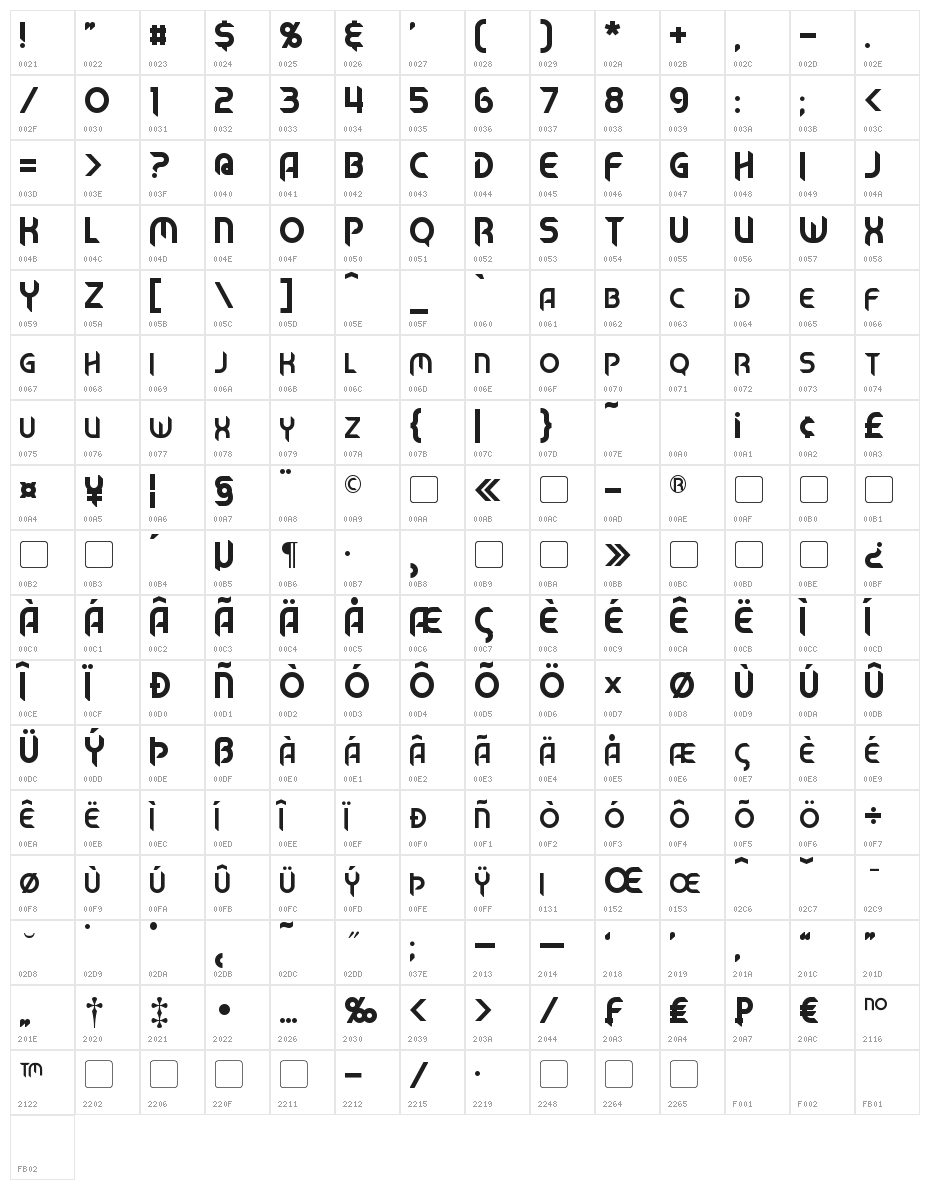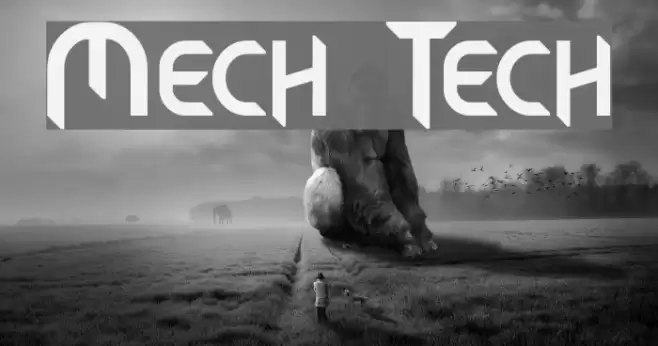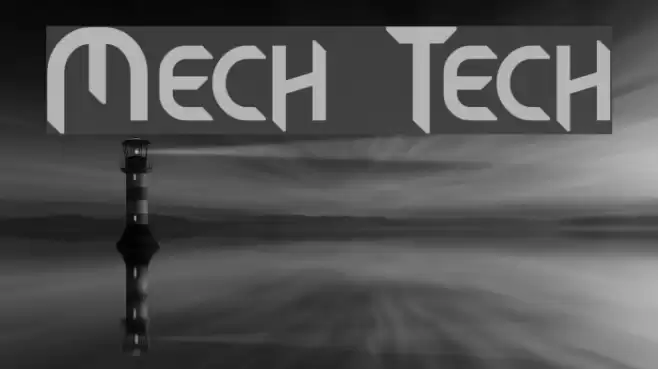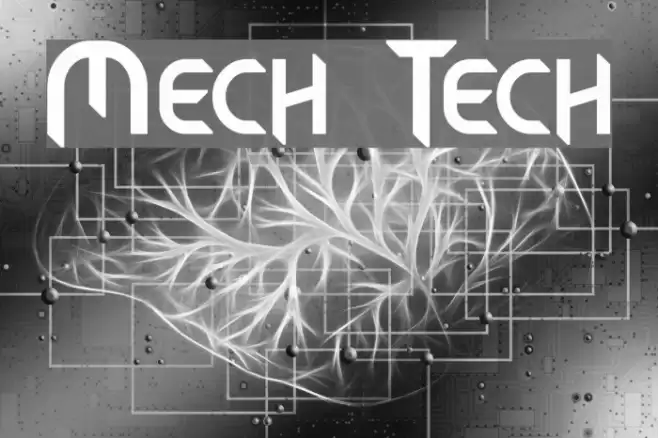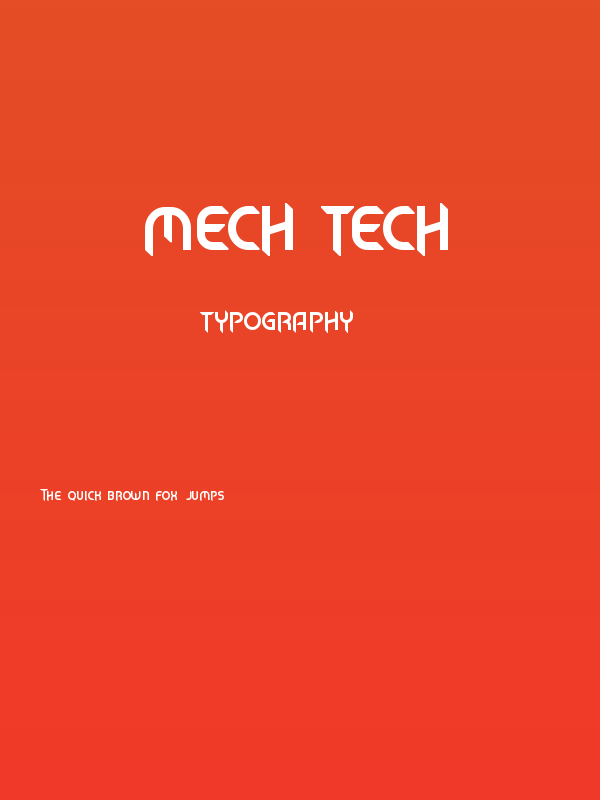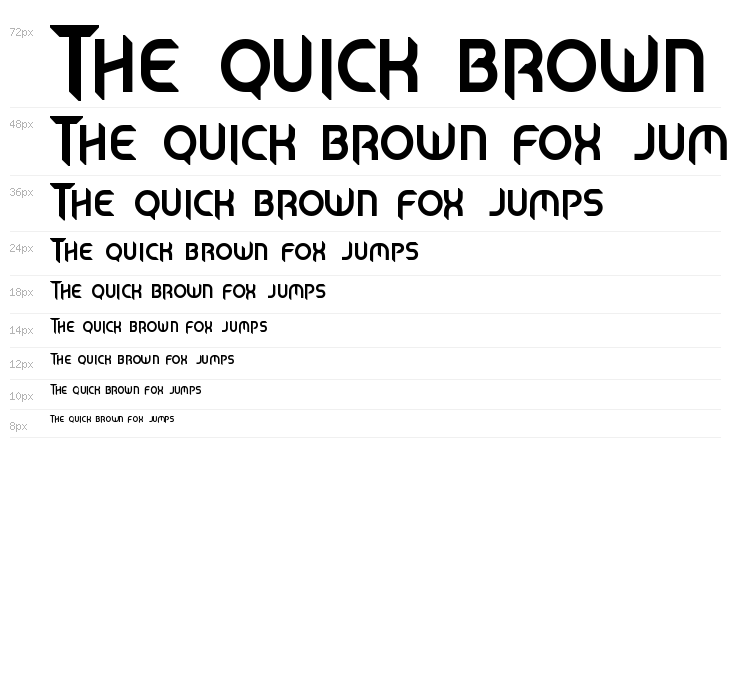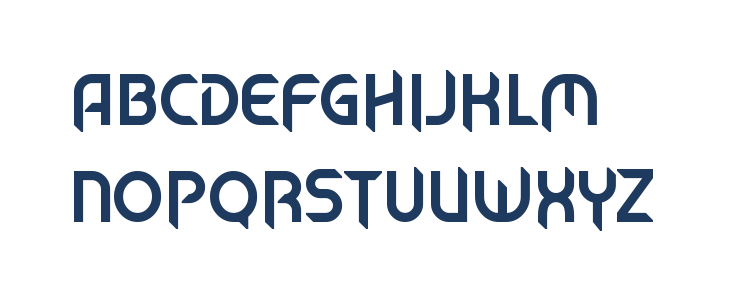
Mech Tech Font
Mech Tech Description
This font features a bold, futuristic design with geometric shapes and sharp angles. The characters are constructed with a consistent stroke width, giving it a uniform and cohesive appearance. The uppercase and lowercase letters share a similar style, enhancing the font's modern and technical feel. The numerals and special characters are designed to match the overall aesthetic, making it suitable for a variety of digital and print applications. Its distinct style is ideal for projects that require a tech-savvy and innovative look.
| Proposed Projects | Ideal for technology branding, video game titles, sci-fi movie posters, and digital interfaces. |